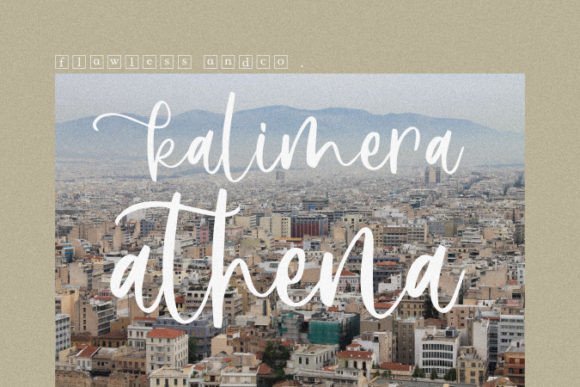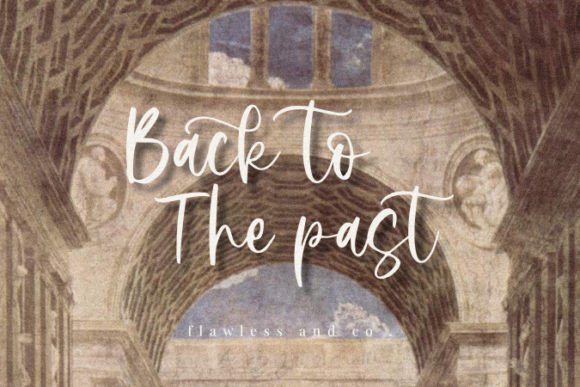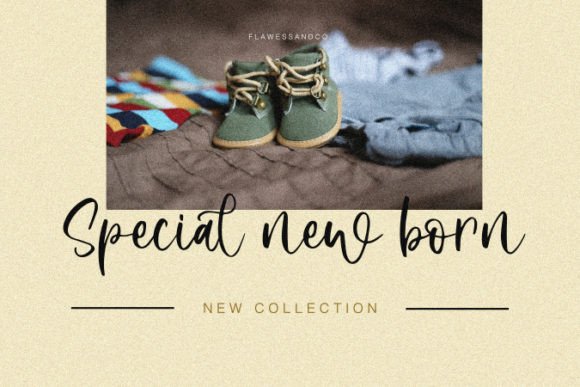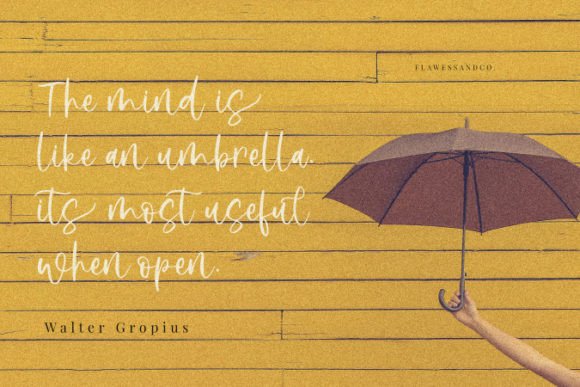
Introduction to Palm Fortress Font Font
Fonts play a crucial role in design, and the Palm Fortress Font font is a typeface that brings both character and versatility to any project. Whether you’re working on a branding project, a website, or a print design, the Palm Fortress Font font offers a unique style that can elevate your work.
| 👤 Author | Flawless And Co |
Palm Fortress is a unique and elegant handwritten font.
It looks beautiful on a variety of designs requiring a personalized style, such as wedding invitations, thank you cards, greeting cards, logos, and so on .
Key Features of Palm Fortress Font Font
Why Choose Palm Fortress Font Font?
The Palm Fortress Font font is more than just a typeface – it’s a design tool that helps you communicate your message with style and clarity. Its unique character set and versatile design make it suitable for a wide range of applications, from elegant invitations to bold headlines.
With its carefully crafted letterforms and balanced proportions, the Palm Fortress Font font ensures readability and visual appeal across all mediums.
What makes Palm Fortress Font font special?
The Palm Fortress Font font stands out with its unique design, exceptional readability, and versatility across various design applications.